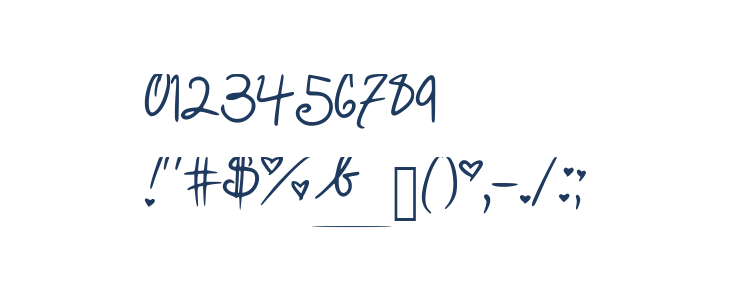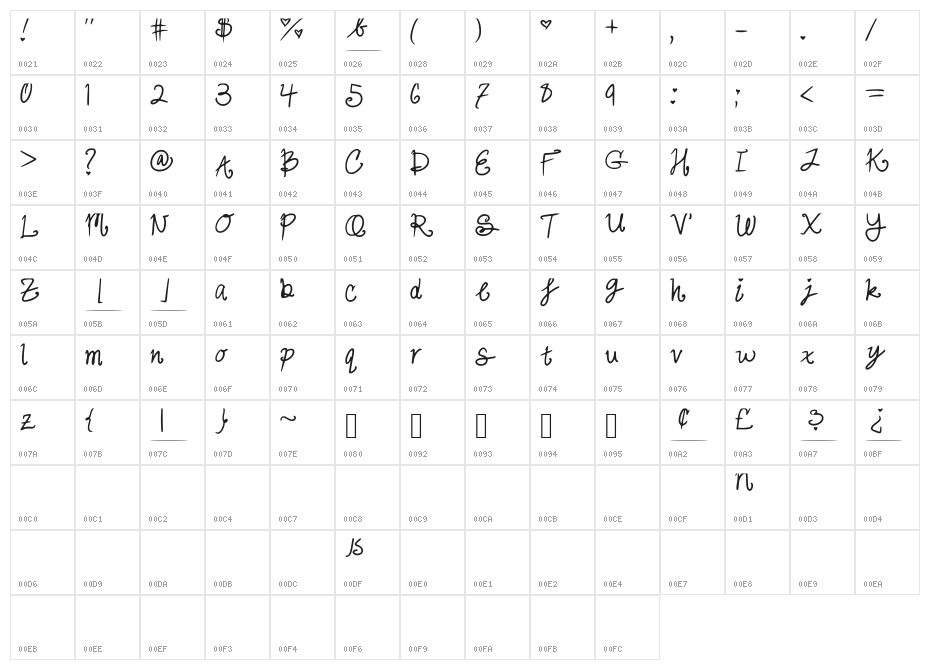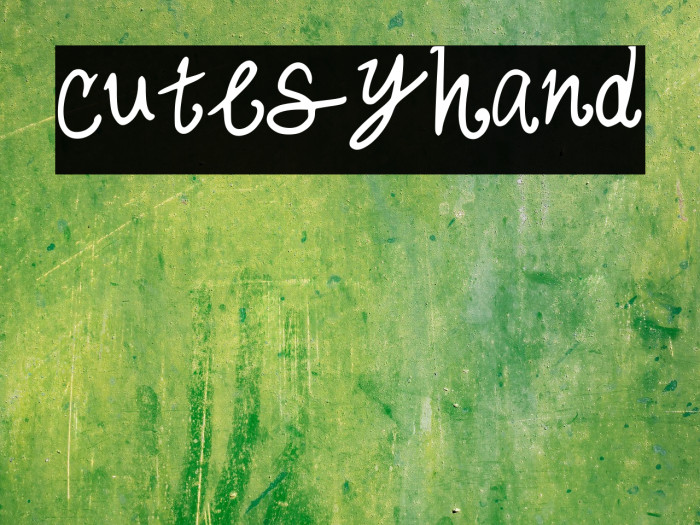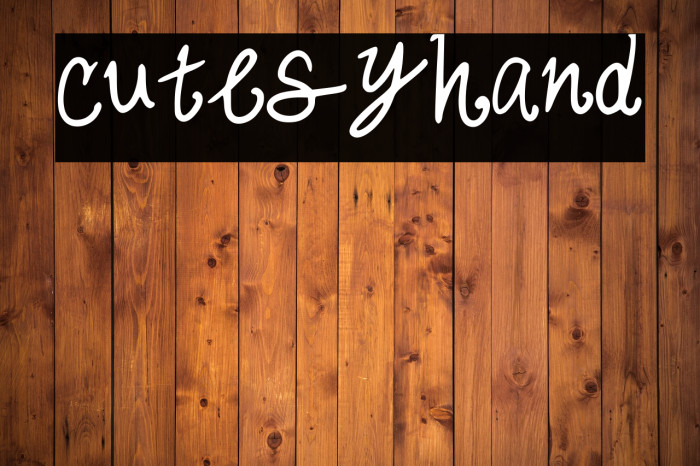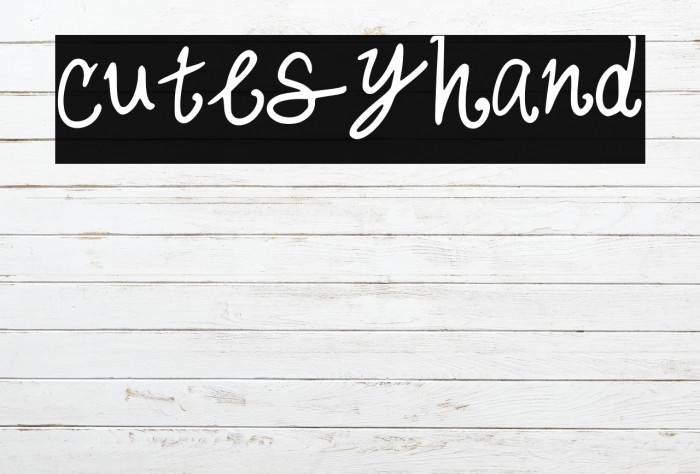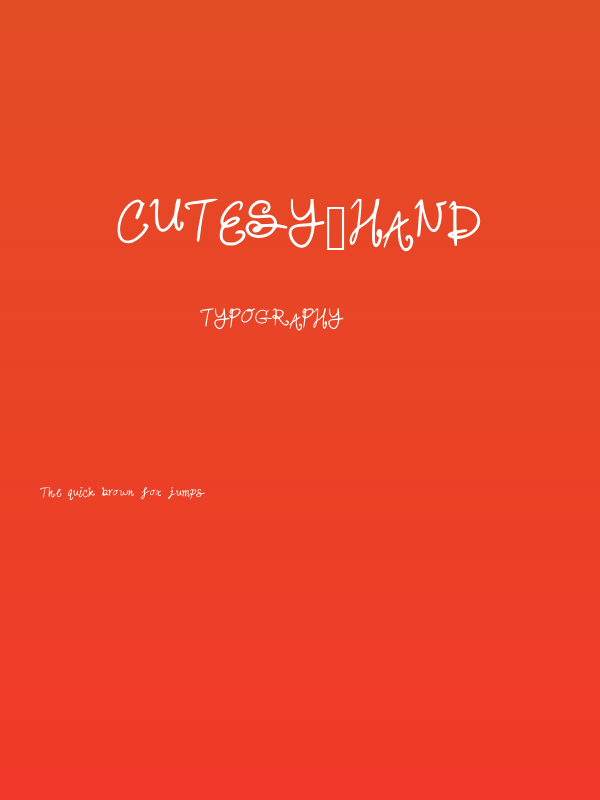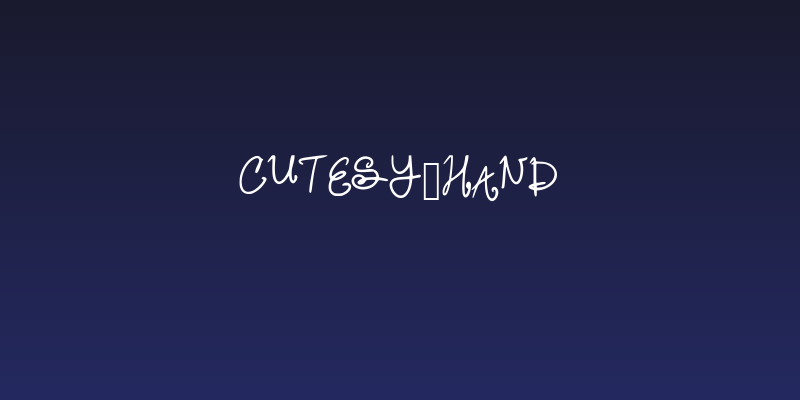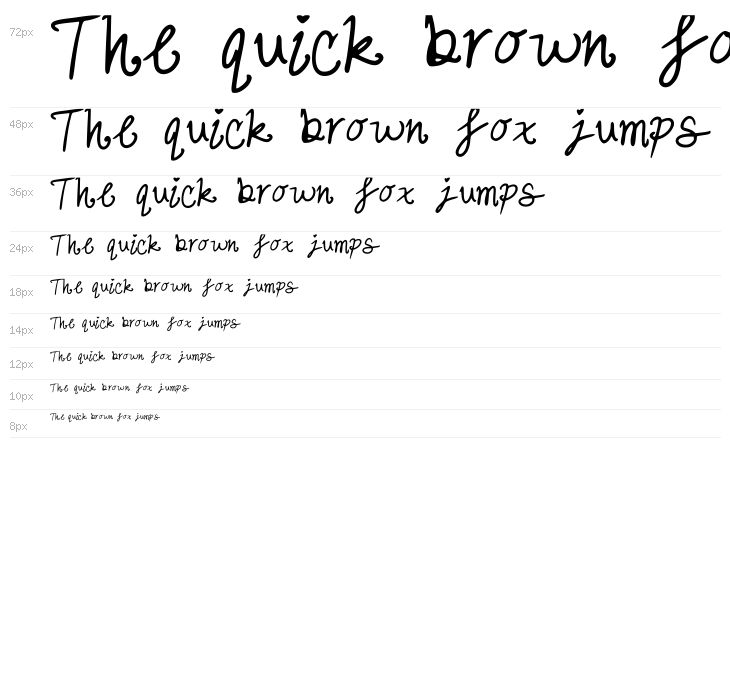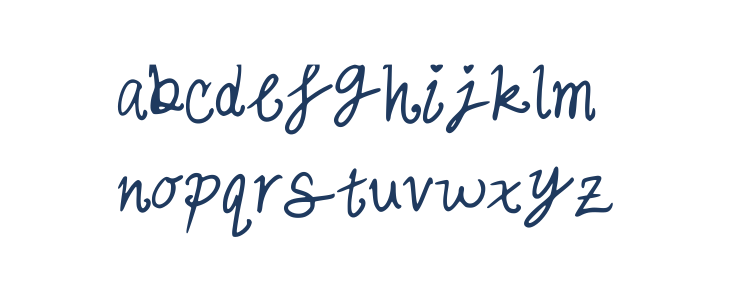
cutesy_hand Font
cutesy_hand Description
This playful and whimsical font features a handwritten style with a charming, casual flair. The characters are slightly irregular, giving it a personal touch that mimics natural handwriting. The uppercase letters are bold and expressive, while the lowercase letters maintain a consistent flow with a few unique embellishments, such as hearts on the 'i' and 'j'. The numbers are clear and easy to read, maintaining the same playful style. Special characters are creatively designed, adding to the font's overall charm. This font is perfect for projects that require a friendly and approachable feel.
| Overall Style | Whimsical |
| Use Case | Logos, Invitations, Social Media Posts |
| Proposed Projects | Ideal for greeting cards, children's books, playful branding, and social media graphics. |